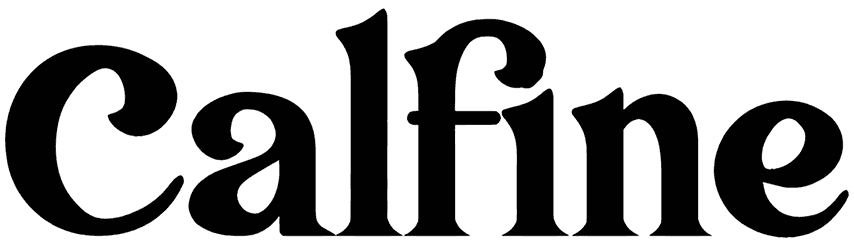
Calfine Font
Launch into a true noir look, cause prominence awaits you with this engaging classic font. In a standard arrangement, Calfine font brings you that exact vibe and feel of the classic design; however, it lacks numbers. Today, Resource Boy offers you an offer you cannot deny.